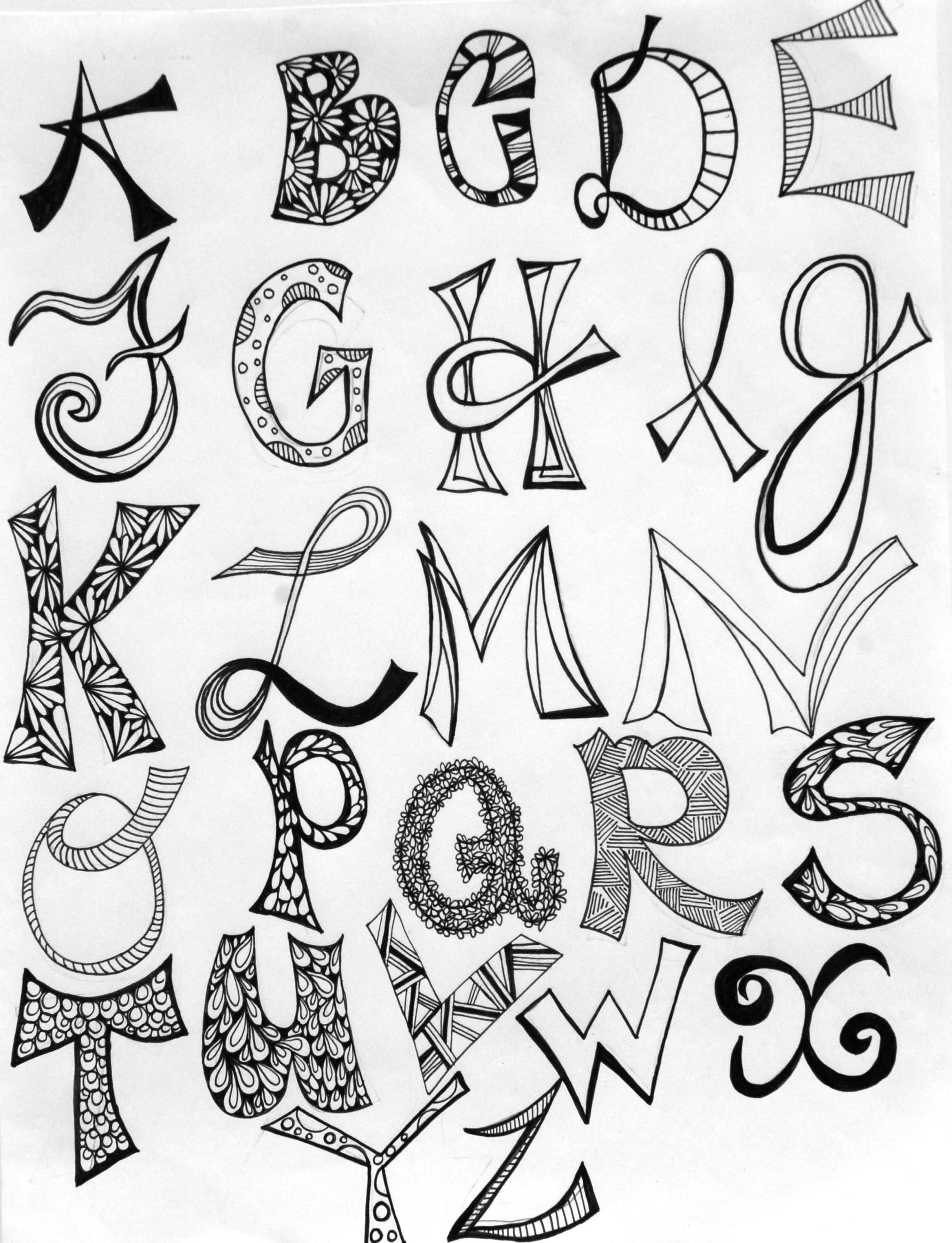
Here, we have tried our. In writing style, external factors such as text style, fonts, size do matter to a large extent. Fancy alphabet cool fonts to draw :